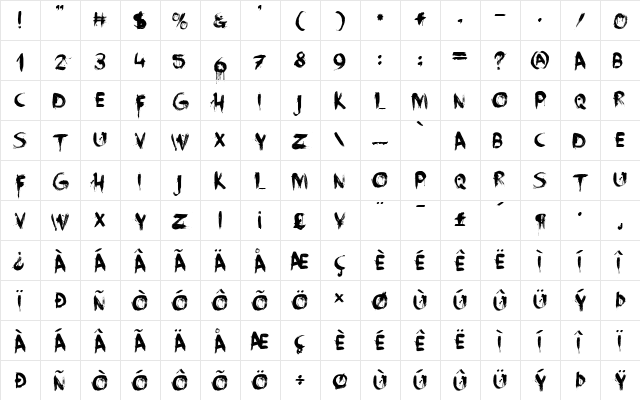
Face Your Fears Regular Free Font
Face Your Fears Regular
Foundry: David Kerkhoff
Designer: David Kerkhoff
Year: 2011
Design Context for Face Your Fears
Face Your Fears is a composed and adaptable typeface that performs quietly and consistently across a wide range of design contexts.